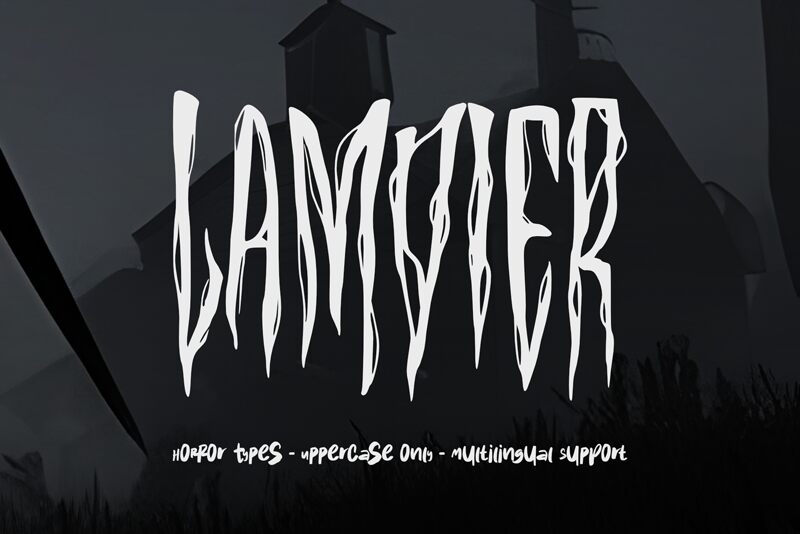
Lamvier
Lamvier font from Horror Font is a display font with letters characterized by a dramatic, organic, eerie, textured, artistic look. Its wide open and slightly uneven corners accompanied by the grungy design make up for its scary overall style. This light condensed font inspired by gothic typefaces evokes intrigue and mysterious ambiance due to its emotional impact of edginess.